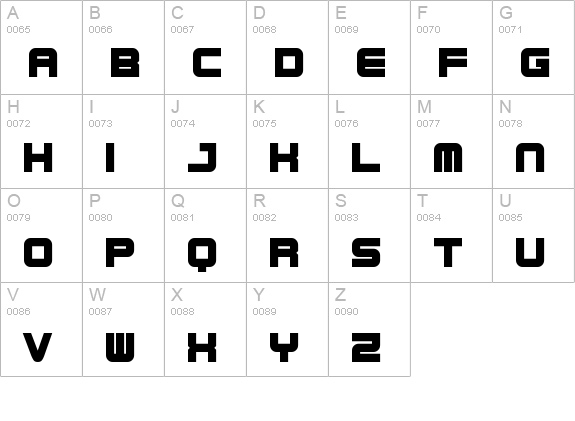
Robotica New is a free for personal use font in the Modern > Sci-Fi category, designed by Darrell Flood. It has been downloaded 65 times and is available for Windows, Mac and Linux.
Introducing Robotica New font, a sleek and modern typeface that is perfect for adding a futuristic touch to your design projects. This font features clean lines and a contemporary look that makes it ideal for use in digital and print materials. With its unique geometric shapes and sharp edges, Robotica New font is sure to make a statement.